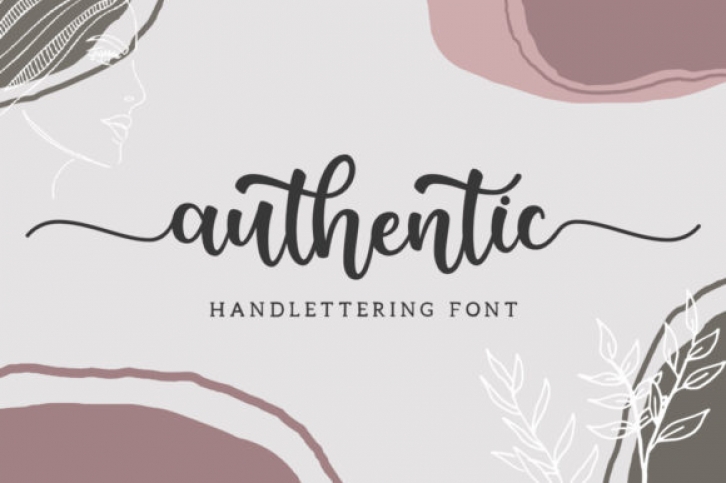
Authentic is a beautiful soft hand-lettered script font. Fall in love with its authentic feel and use it to create gorgeous wedding invitations, beautiful stationary art, eye-catching social media posts, and cute greeting cards. This font is PUA encoded which means you can access all of the cute glyphs and swashes with ease! It also features a wealth of special features including alternate glyphs and ligatures.